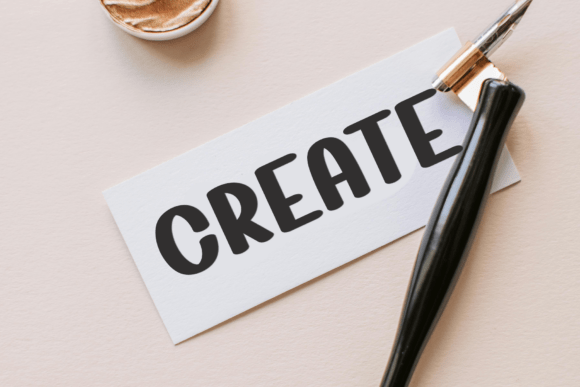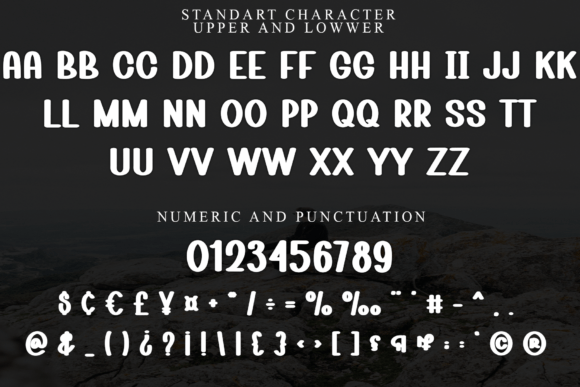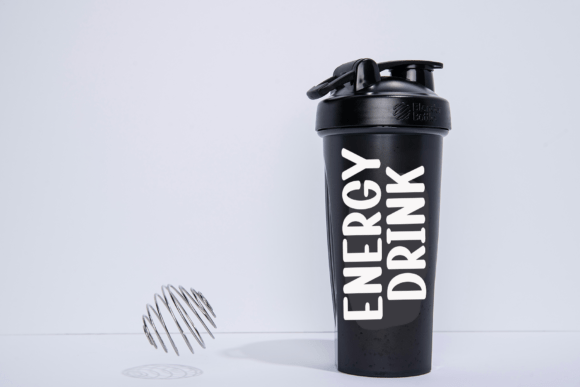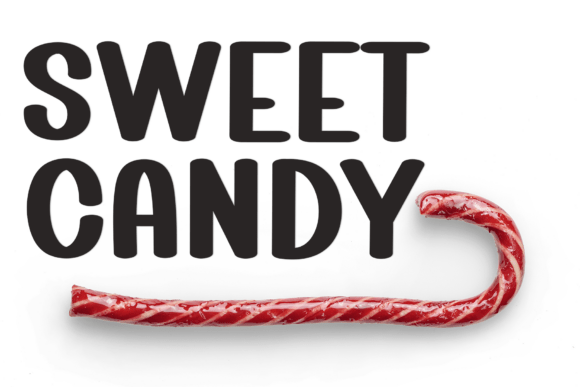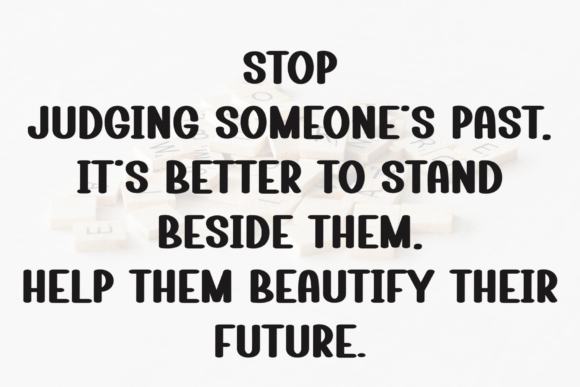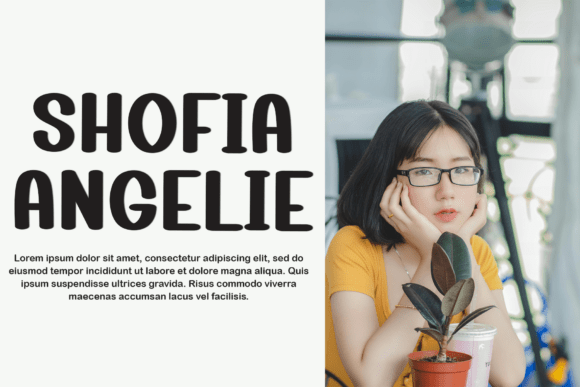
Introducing April Hunky Font: The Ultimate Holiday Typeface
Are you looking for a font that embodies the spirit of the holiday season? Look no further than the April Hunky Font! This festive and merry typeface is designed to add a touch of enchantment to your designs, making it perfect for greeting cards, gift tags, and holiday-themed projects.
The April Hunky Font is a decorative typeface that exudes a sense of whimsy and fun. Its unique design elements and playful flair make it an ideal choice for designers and crafters who want to add a touch of magic to their work. Whether you’re creating holiday cards, gift tags, or festive banners, this font is sure to bring a cheerful and nostalgic ambiance to your words.
The April Hunky Font is specifically designed for holiday-themed projects. Its festive design elements and decorative flair make it perfect for:
- Greeting cards: Create beautiful and unique holiday cards that will stand out from the crowd.
- Gift tags: Add a personal touch to your gifts with custom gift tags featuring the April Hunky Font.
- Holiday-themed projects: From festive banners to holiday-themed party invitations, this font is perfect for any holiday project.
Benefits of Using April Hunky Font
There are many benefits to using the April Hunky Font in your designs. Some of the most significant advantages include:
- Unique and festive designs: The April Hunky Font allows you to create unique and festive designs that will stand out from the crowd.
- Perfect for holiday projects: The font is specifically designed for holiday-themed projects, making it a great choice for designers and crafters who want to create festive designs.
Tips for Using April Hunky Font
Here are some tips for using the April Hunky Font in your designs:
- Experiment with different sizes and colors: The April Hunky Font looks great in a variety of sizes and colors, so don’t be afraid to experiment and find the perfect look for your design.
- Use it with other fonts: The April Hunky Font pairs well with other fonts, so try using it with a complementary font to create a unique and interesting design.
- Don’t be afraid to get creative: The April Hunky Font is a versatile font that can be used in a variety of creative ways, so don’t be afraid to think outside the box and try something new.
The April Hunky Font is a festive and merry typeface that is perfect for holiday-themed projects. Its decorative elements and whimsical flair make it a great choice for designers and crafters who want to add a touch of enchantment to their work. With its PUA encoding and easy-to-use design, this font is a must-have for anyone looking to create unique and festive designs.